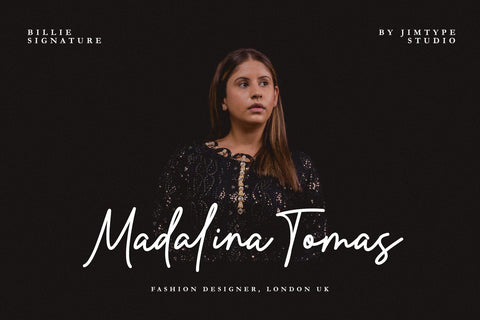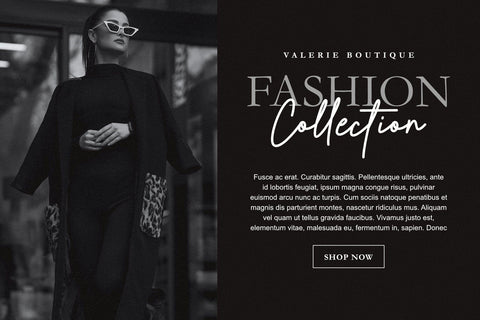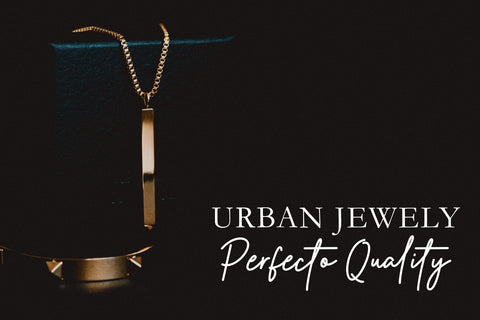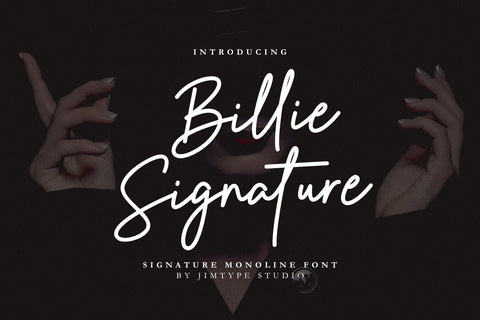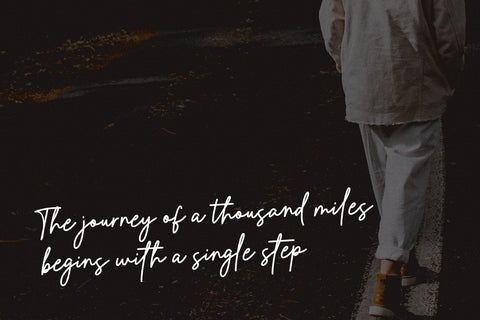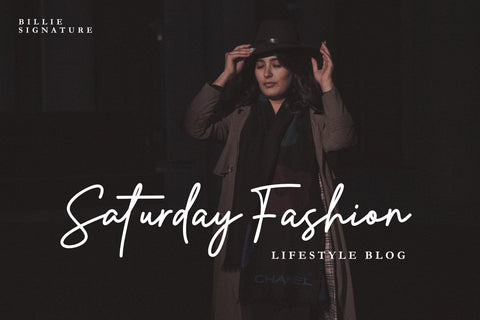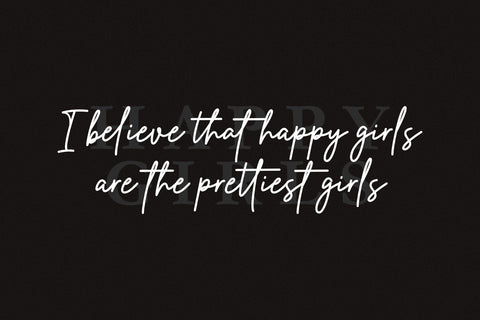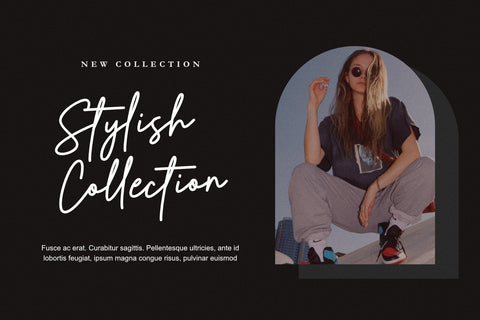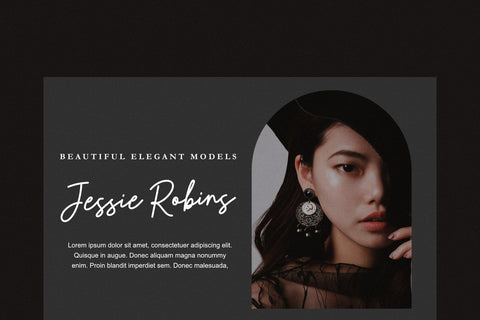
Billie Signature | Business Branding Font
Billie Signature is a smooth signature font, we pay attention to every detail of the letters therefore this font has strong character in each letter and will be very suitable for branding projects, logotypes, social media posts, advertisements, product packaging, product designs, label, photography, watermark, invitation, and any projects that need a signature taste.